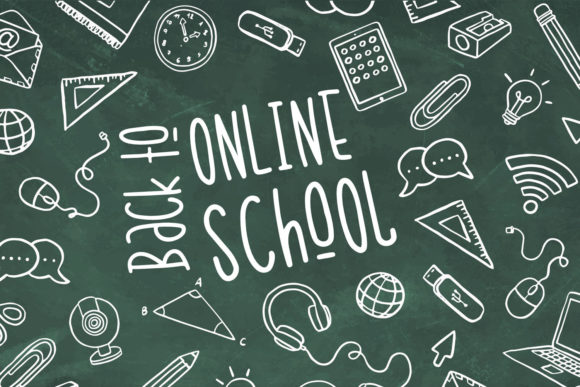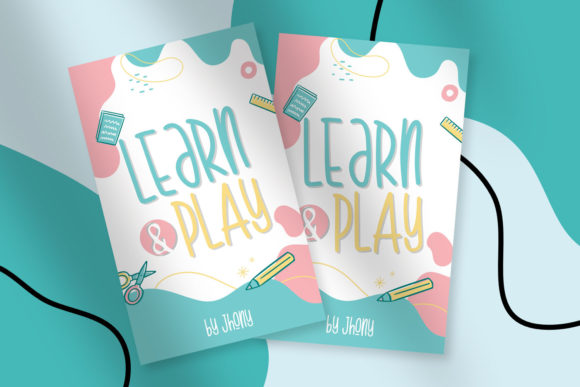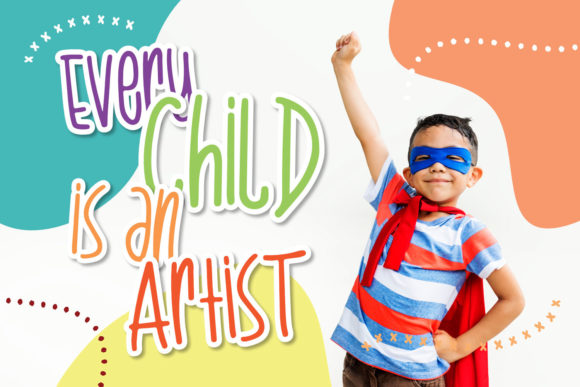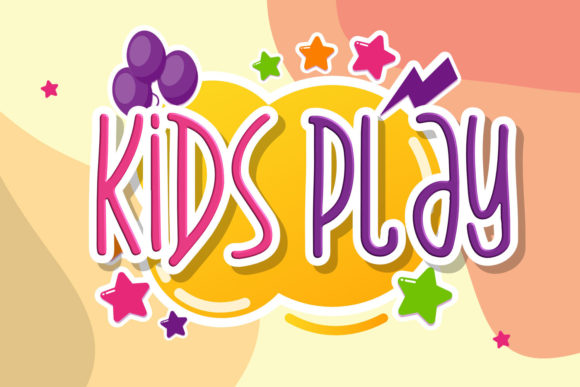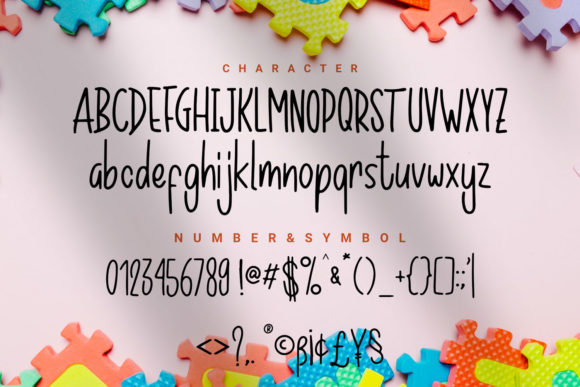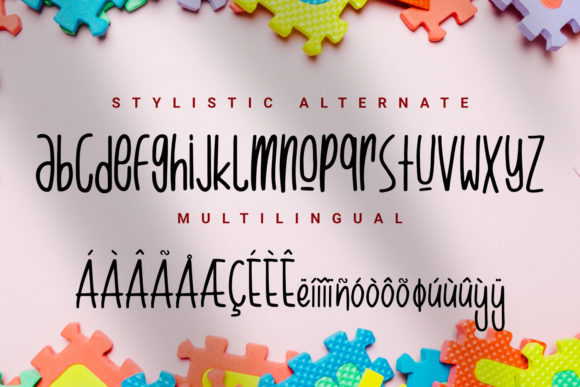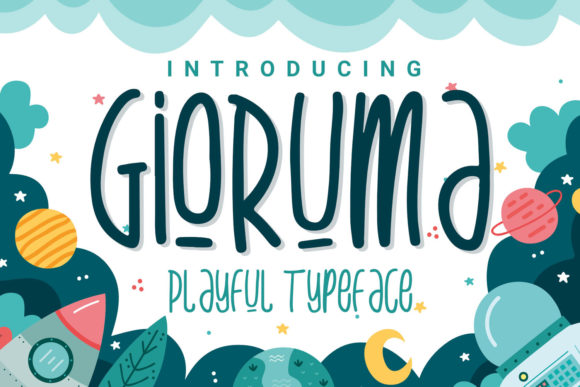
Gioruma Font: The Playful and Cute Display Font for Designers and Crafters
Are you a designer, crafter, or digital artist looking for a font that can add a touch of playfulness and cuteness to your projects? Look no further than Gioruma Font! This delightful display font is perfect for a variety of creative endeavors, from crafting and digital designing to presentations and greeting cards making.
What Makes Gioruma Font So Special?
Gioruma Font is a standout in the world of typography due to its unique blend of playfulness and charm. Its carefully crafted design makes it an excellent choice for projects that require a friendly and approachable tone. Whether you’re creating a digital design, a handmade craft, or a presentation, Gioruma Font is sure to add a touch of whimsy and fun.
Key Features of Gioruma Font
• Playful and Cute Design: Gioruma Font boasts a playful and cute design that’s perfect for creating eye-catching projects.
• PUA Encoded: This font is PUA (Private Use Area) encoded, which means you can access all of the glyphs and swashes with ease. This feature makes it incredibly easy to use and customize.
• Multipurpose: Gioruma Font is versatile and can be used for a wide range of projects, including crafting, digital designing, presentations, and greeting cards making.
• Ease of Use: Thanks to its PUA encoding, you can easily access all the special characters and swashes, making it simple to add a personal touch to your projects.
Gioruma Font is an excellent choice for designers and crafters alike. Its playful and cute design makes it perfect for:
• Digital Designs: Add a touch of whimsy to your digital designs, such as social media graphics, blog posts, and website headers.
• Crafting Projects: Use Gioruma Font to create eye-catching titles and decorations for your handmade crafts, such as scrapbooking, card making, and DIY projects.
• Presentations: Make your presentations more engaging and fun with Gioruma Font. It’s perfect for titles, headings, and emphasis text.
• Greeting Cards Making: Create adorable and personalized greeting cards for special occasions, such as birthdays, holidays, and weddings.
Tips for Using Gioruma Font
To get the most out of Gioruma Font, here are some tips:
• Experiment with Sizes and Colors: Don’t be afraid to try out different font sizes and colors to add visual interest to your projects.
• Mix and Match with Other Fonts: Combine Gioruma Font with other fonts to create a unique and eye-catching typography.
• Use Swashes and Glyphs: Take advantage of the PUA encoding and use the swashes and glyphs to add a personal touch to your projects.
In conclusion, Gioruma Font is a versatile and delightful display font that’s perfect for designers, crafters, and digital artists. Its playful and cute design, combined with its PUA encoding, makes it an excellent choice for a wide range of creative projects. Whether you’re creating digital designs, crafting handmade projects, or making presentations and greeting cards, Gioruma Font is sure to add a touch of whimsy and fun.